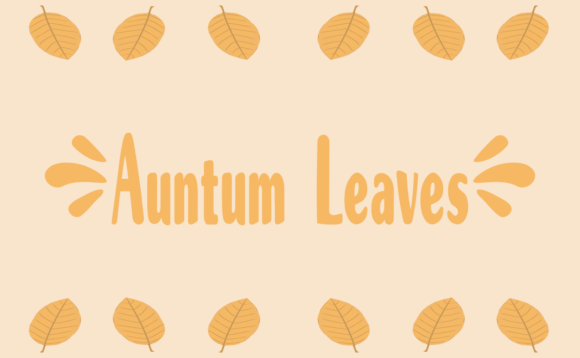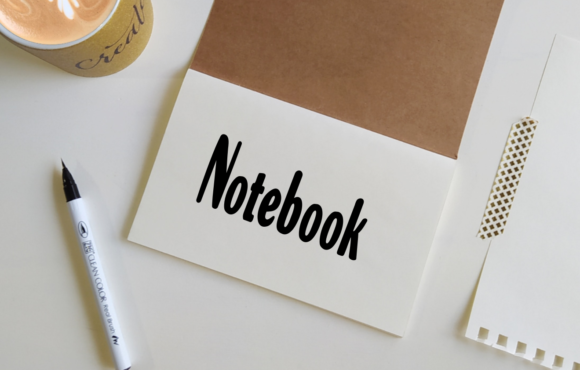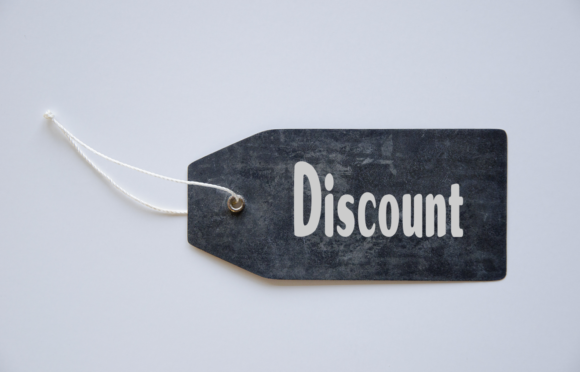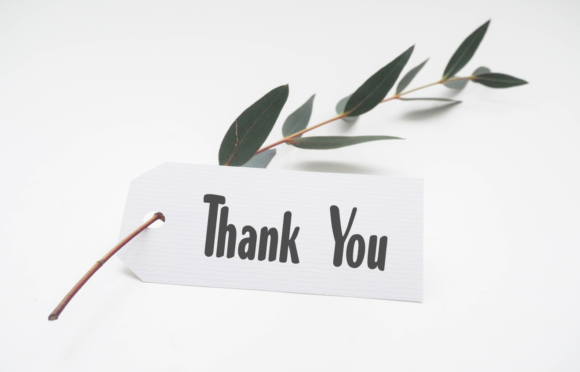
Unlock the Fun of Hallo Summer Font
As a designer, there’s nothing quite like the thrill of brainstorming a new project and seeing the ideas start to come together. For me, it’s often the smallest details that make all the difference – like the perfect font to capture the essence of the project. And that’s exactly where the Hallo Summer Font comes in.
This cool and friendly display font is a breath of fresh air, embodying the playfulness and authenticity that’s perfect for any children’s activity or school project. Whether you’re designing a brochure for a summer camp or a logo for a kid-friendly brand, the Hallo Summer Font is sure to bring a smile to the faces of your young audience.
For designers, the Hallo Summer Font is a valuable addition to any toolkit, offering a unique and versatile solution for projects that need a touch of fun and personality.
Hallo Summer Font Key Features
- Font Family: Hallo Summer, a sans-serif font with a friendly and approachable feel.
- Unique Characteristics: Hallo Summer features a unique blend of modern and playful elements, with subtle rounded edges and a friendly, approachable feel.
Hallos Summer Font Review
First impressions are important, and Hallos Summer Font immediately caught my eye with its whimsical and playful vibe ✨. The font is perfect for summer-themed projects, such as invitations, social media graphics, or even a fun summer blog post. The rounded edges and soft lines evoke a carefree, laid-back feeling that’s hard to resist.
Here are some of the font’s strengths:
- ✨ Unique and eye-catching: Hallos Summer Font is a great choice for anyone looking to add some visual interest to their designs.
- ✨ Perfect for summer projects: The font’s theme is spot on for anything related to summer, making it a no-brainer for seasonal designs.
- ✨ Versatile: While the font is perfect for summer projects, it’s also suitable for other designs that require a playful touch.
- ⚠️ Limited character set: The font’s character set is relatively small, which may not be ideal for longer blocks of text.
- ⚠️ May not be suitable for formal designs: While the font is perfect for playful designs, it may not be the best choice for more formal or professional projects.
Overall, I’m impressed with Hallos Summer Font’s unique charm and versatility. While it may not be perfect for every project, it’s a great choice for anyone looking to add some fun and personality to their designs.
Tips for Getting the Most Out of Hallo Summer Font
Use Hallo Summer Font for:
- Casual, summer-themed designs.
- Summer-themed social media posts and graphics.
Experiment with different font sizes, colors, and styles to create a unique and eye-catching look.